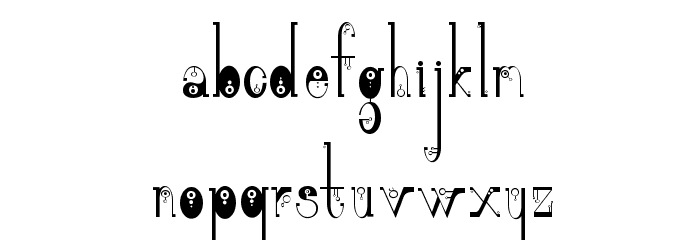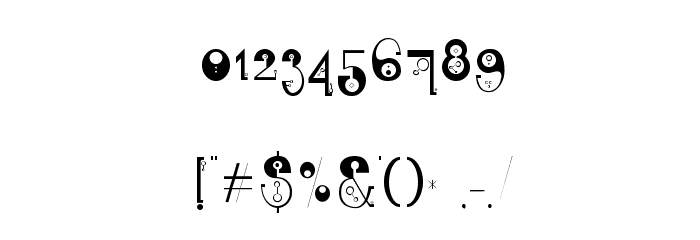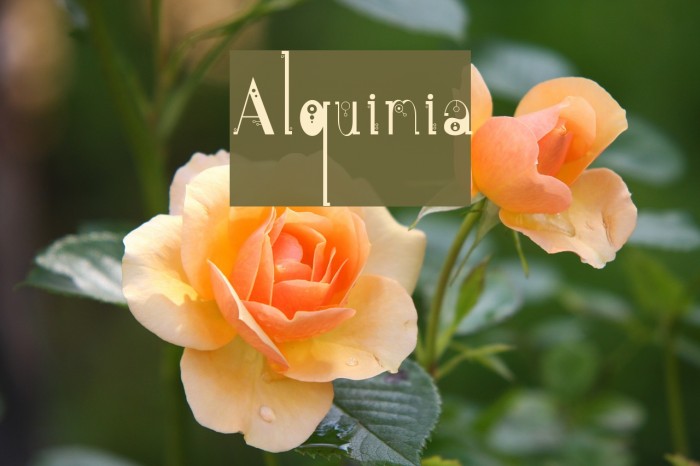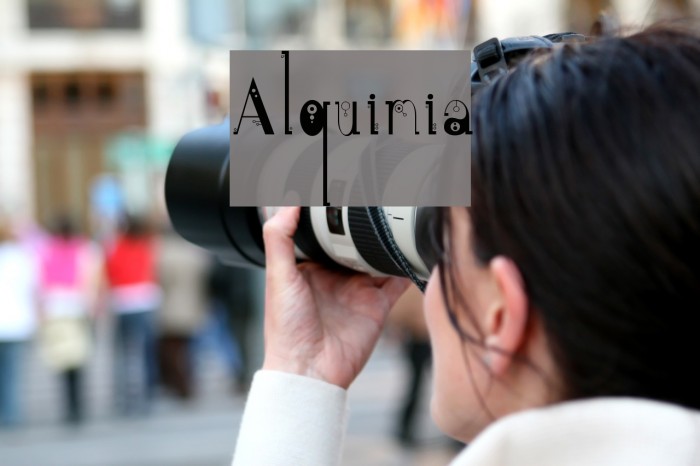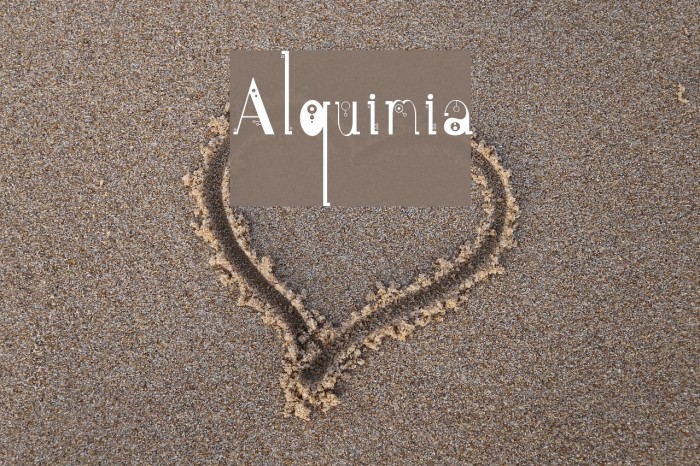
Alquimia Font
This font is a decorative and artistic typeface that combines elements of whimsy and elegance. Each character is adorned with intricate swirls and dots, creating a playful yet sophisticated appearance. The uppercase letters are bold and striking, while the lowercase letters maintain a consistent style with unique embellishments. Numbers and special characters follow the same ornate design, making this font ideal for creative projects. The overall look is reminiscent of a vintage or fantasy theme, perfect for capturing attention and adding a touch of magic to any design.
A decorative font with whimsical swirls and dots, ideal for creative projects.
- Proposed Projects: Perfect for invitations, posters, book covers, and branding that requires a touch of elegance and fantasy.